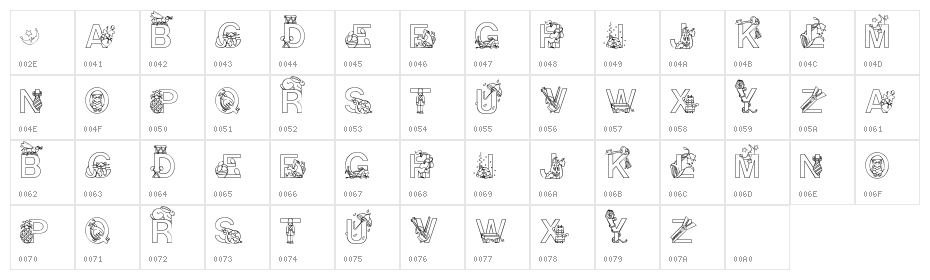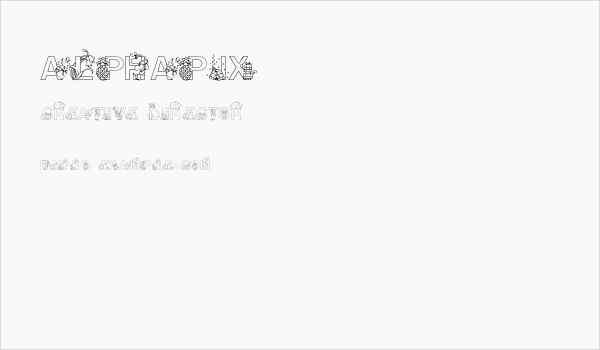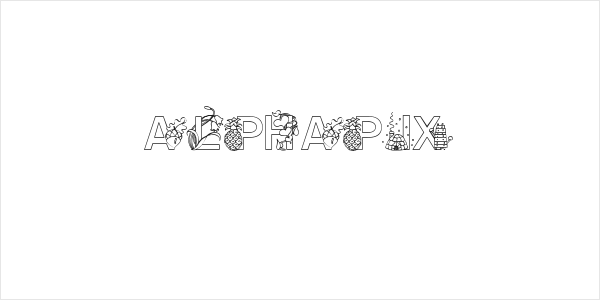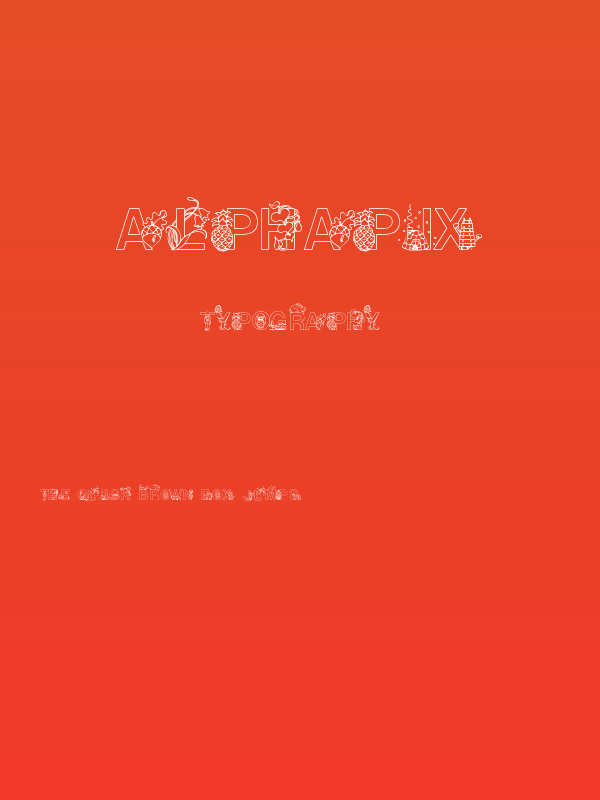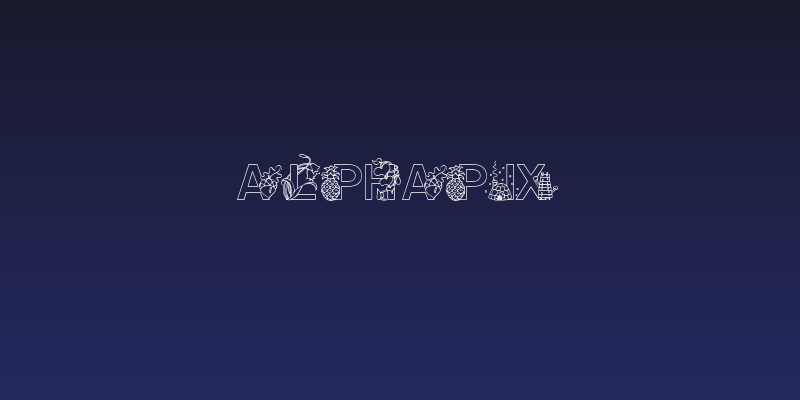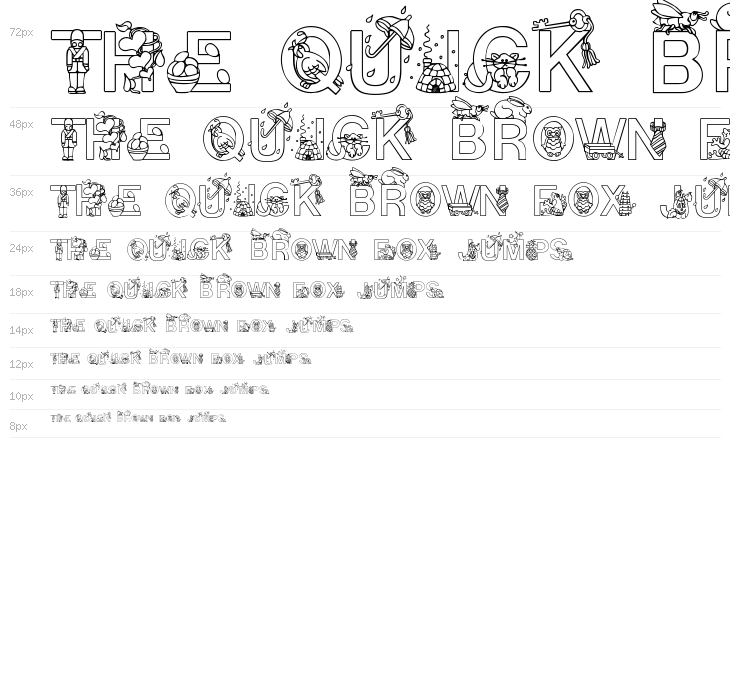
Alphapix Font
Alphapix Description
This font features a playful and decorative style, with each letter incorporating whimsical illustrations that add a unique and engaging element to the design. The characters are outlined, allowing the illustrations to stand out, and each letter is paired with a distinct image that complements its shape. This creative integration of art and typography makes the font visually appealing and suitable for projects that require a fun and imaginative touch.
| Proposed Projects | Ideal for children's books, playful posters, educational materials, and creative branding projects. |